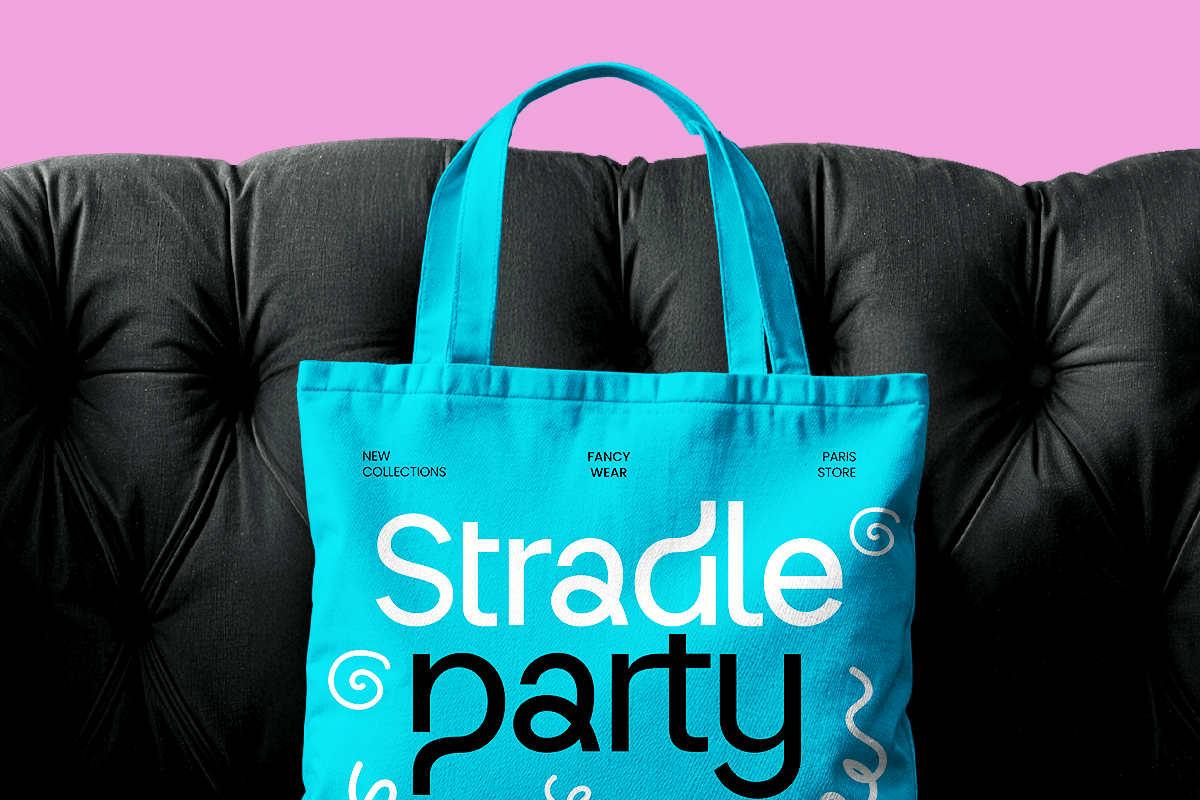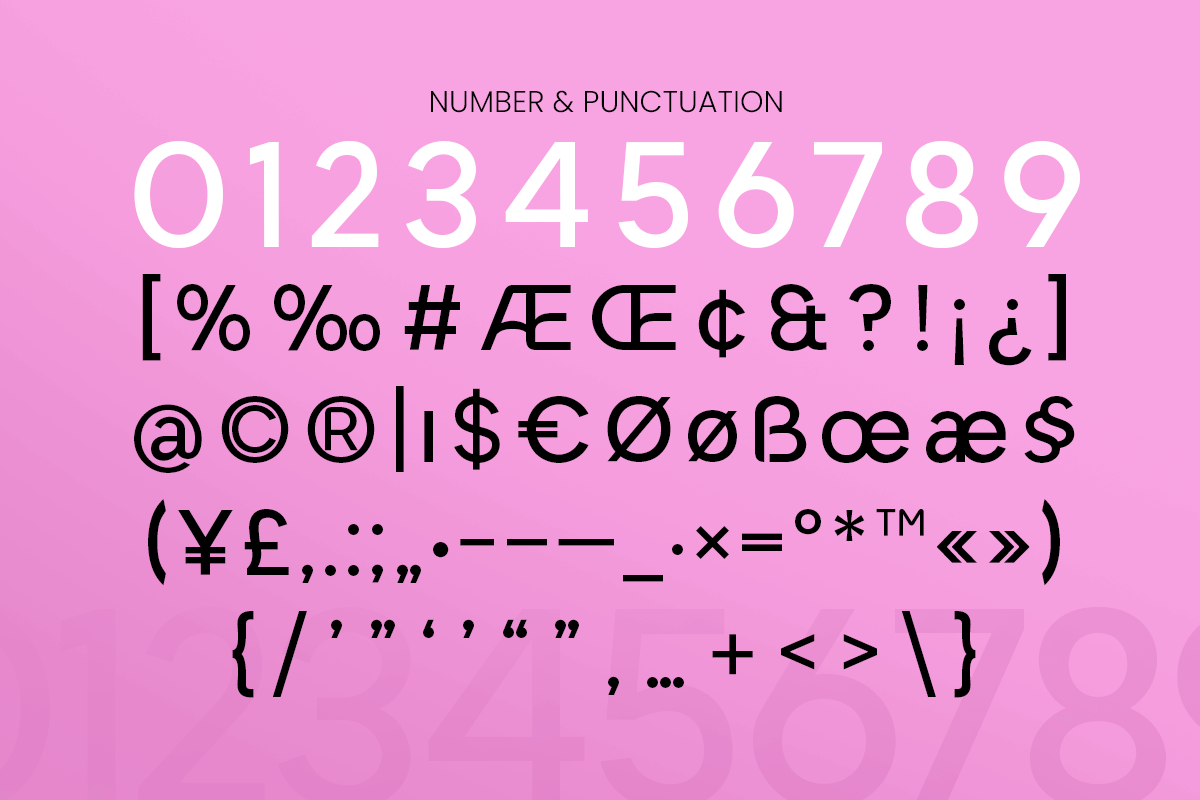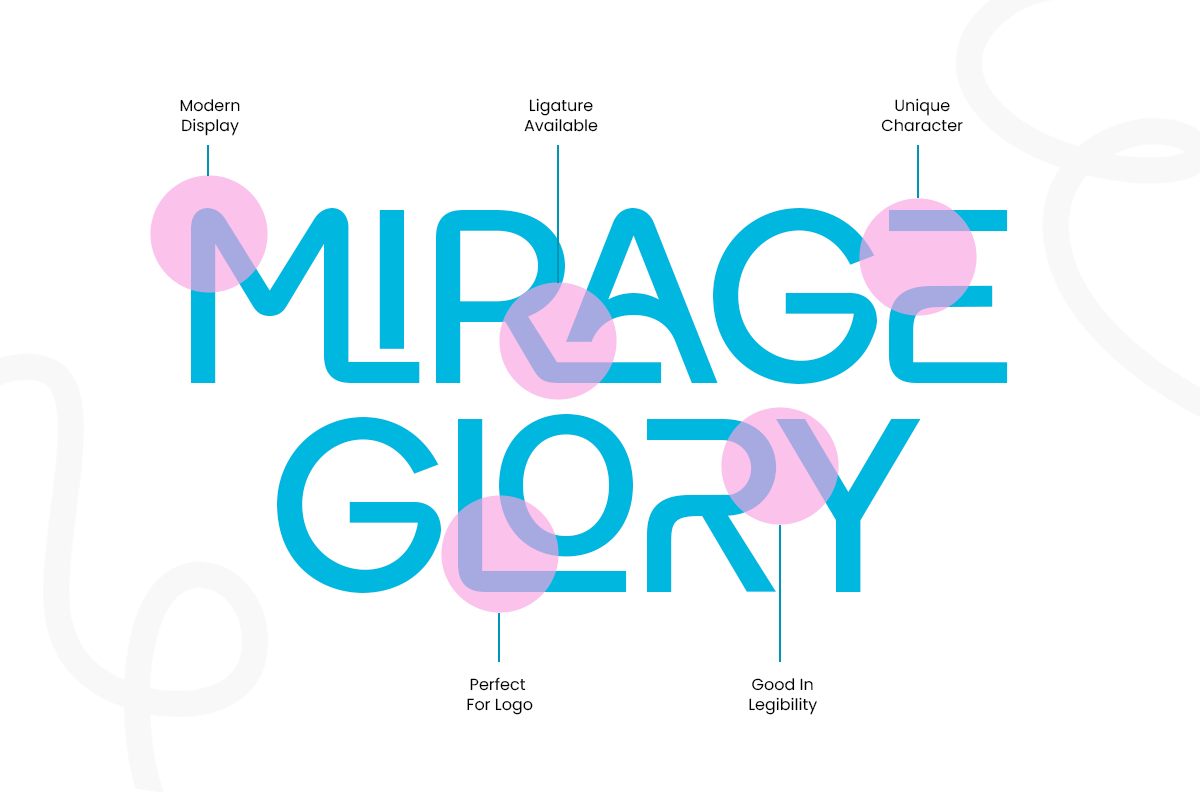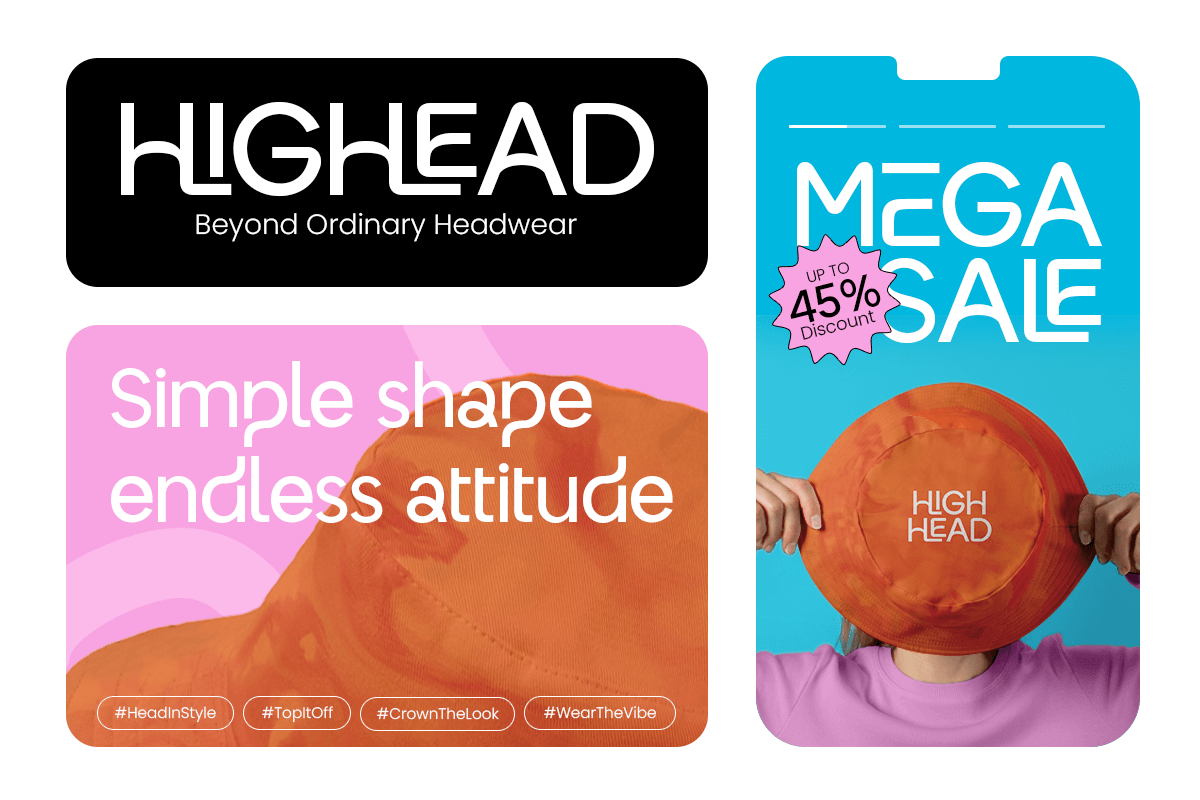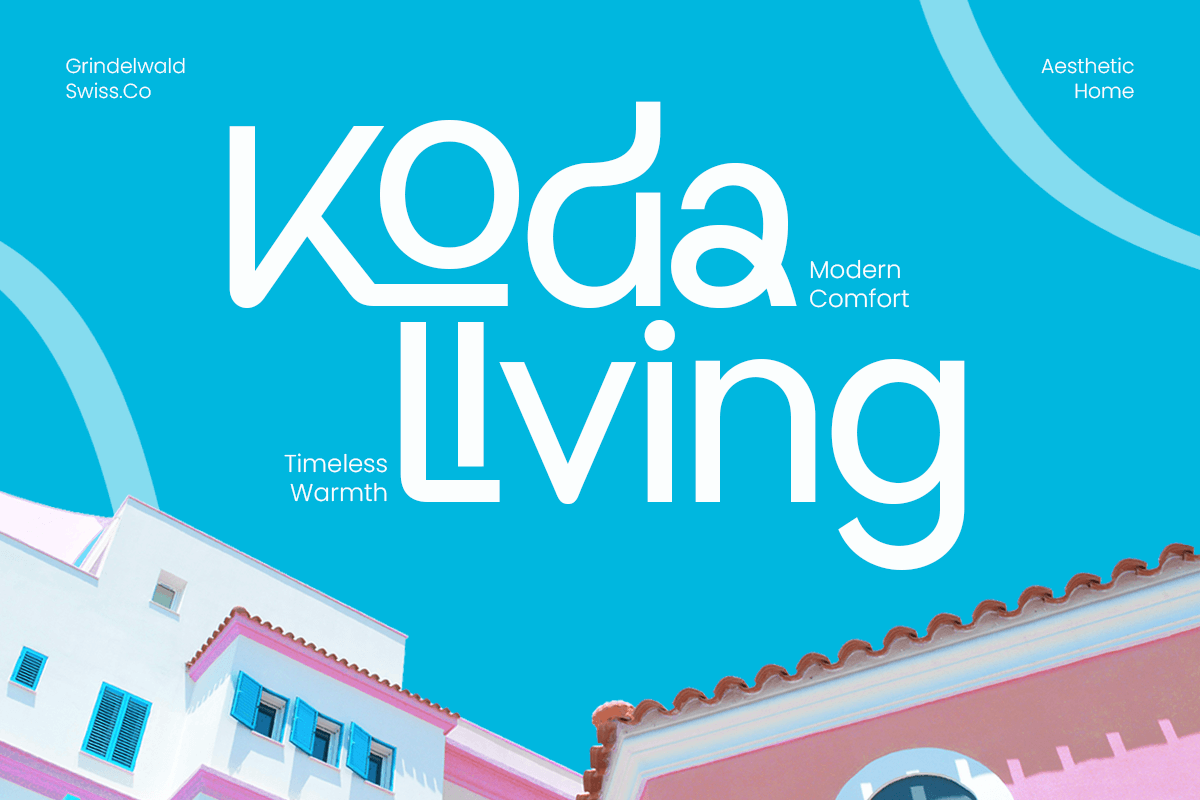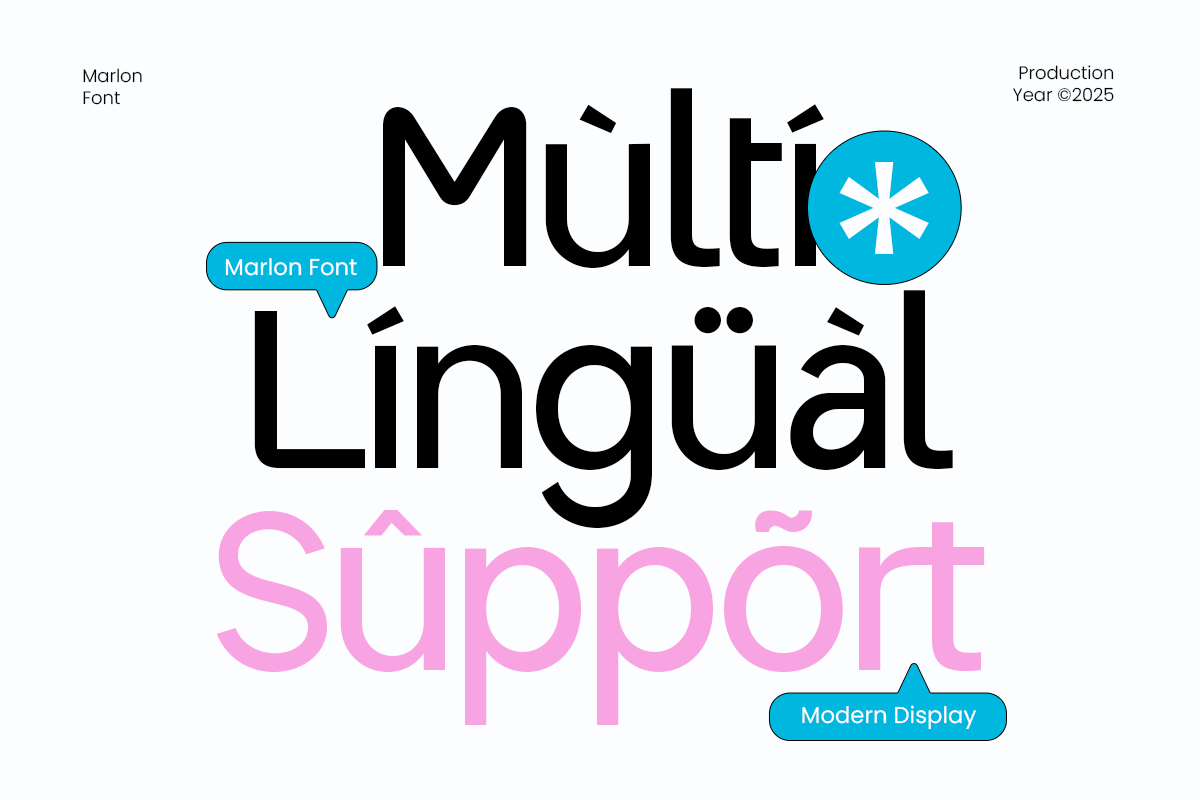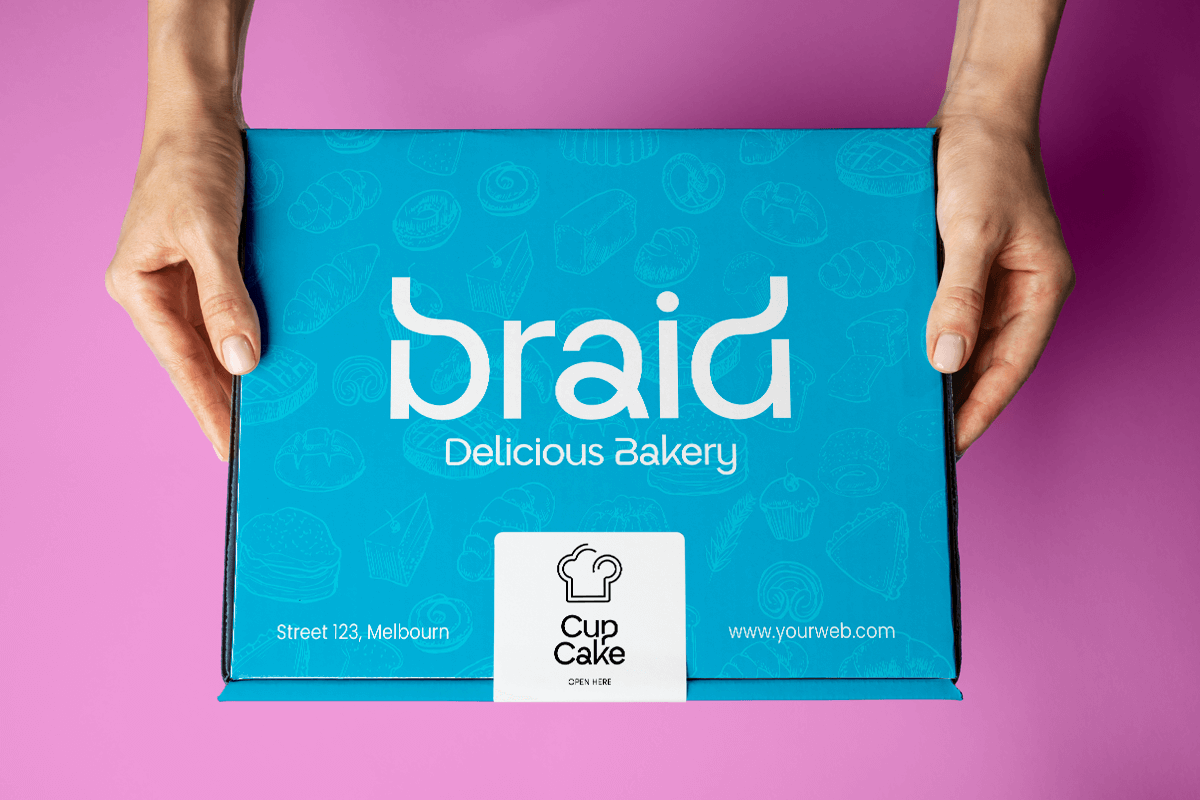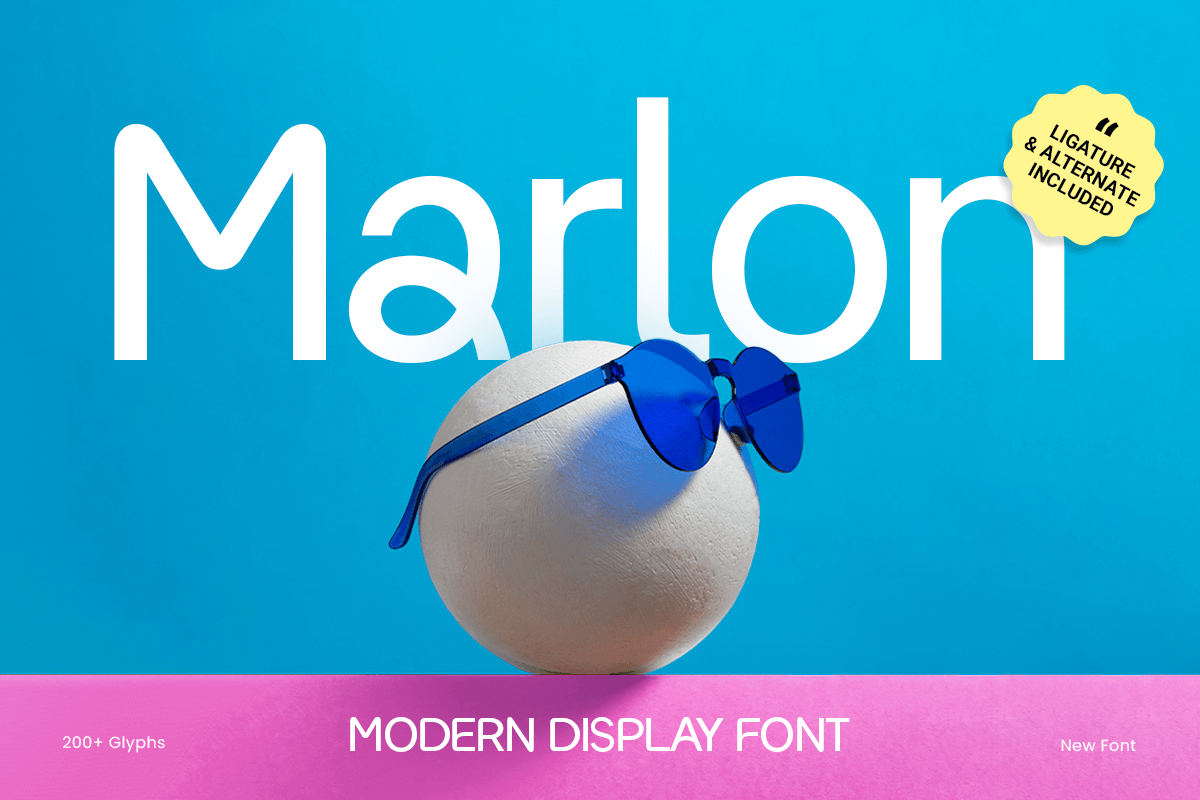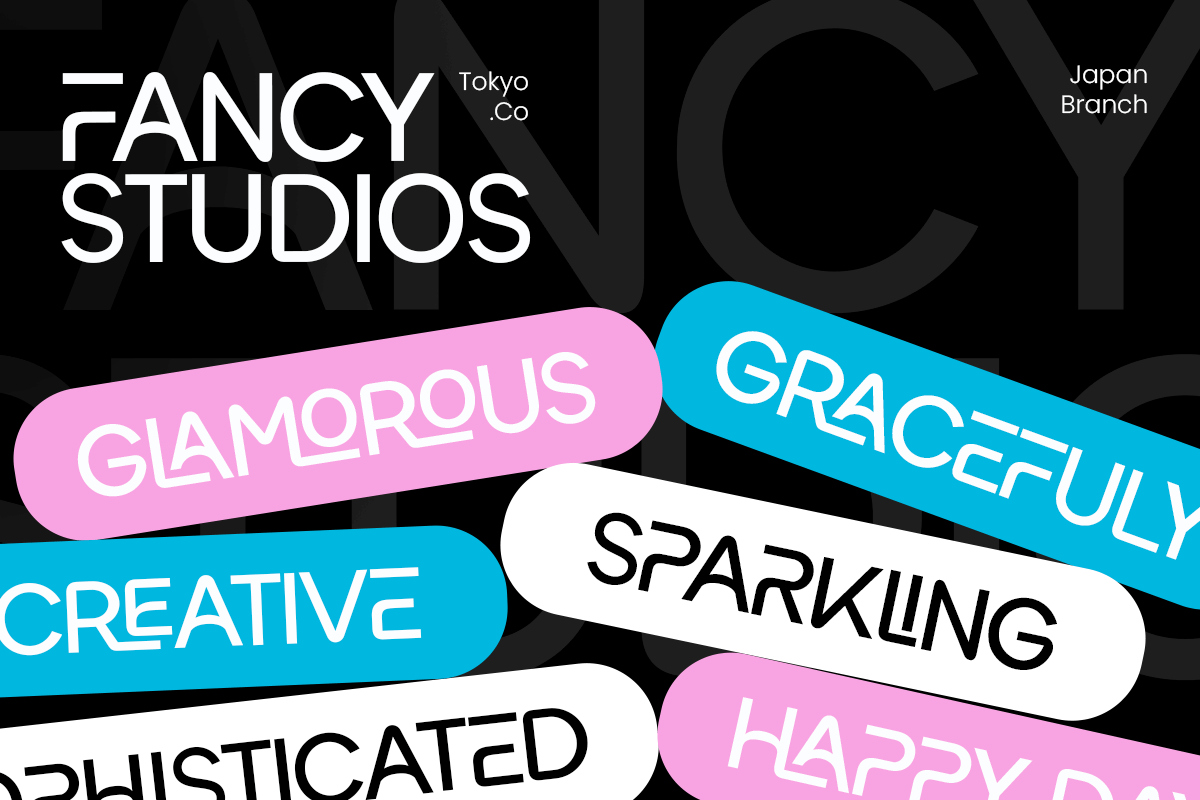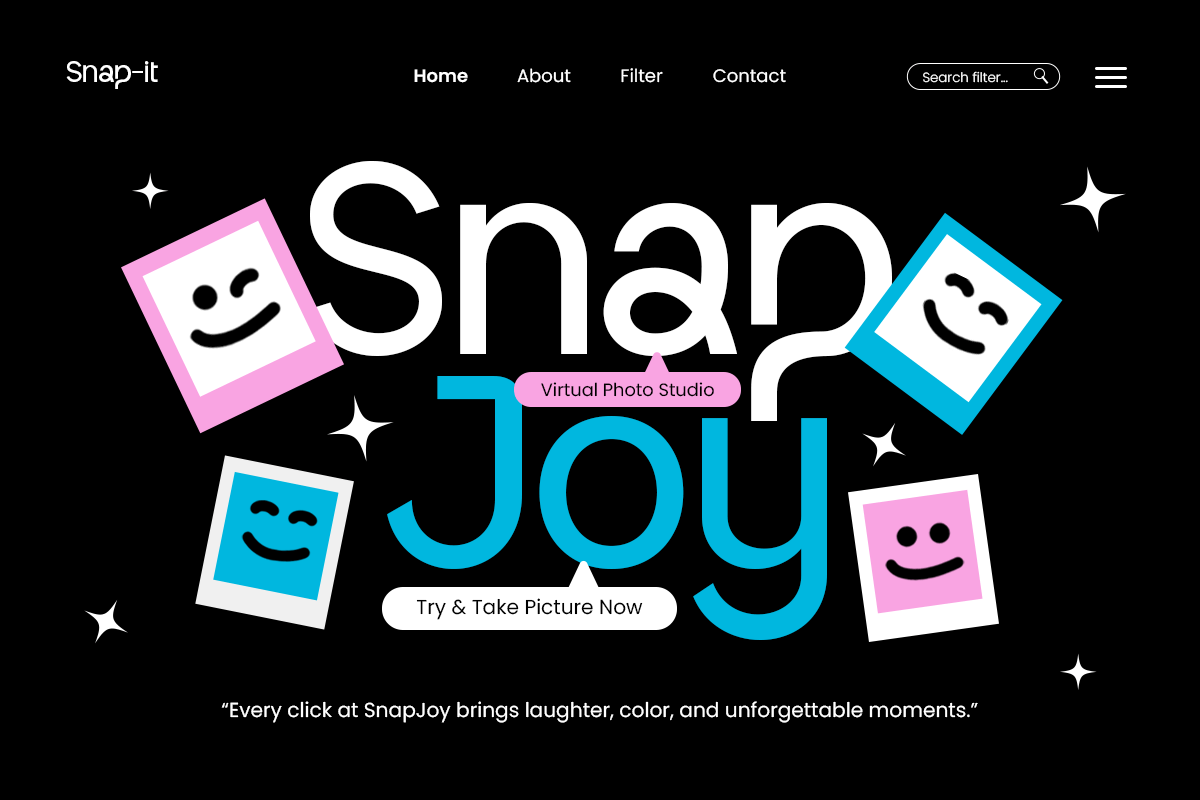
Marlon - Modern Display Font
Marlon is a modern display font crafted to bring a bold and contemporary flair to your designs. Perfect for branding, logos, headlines, posters, and digital media, it combines readability with a striking modern aesthetic. With clean lines and distinctive character shapes, Marlon makes your designs stand out in both print and digital projects, ideal for creative professionals and modern brands looking for a memorable visual identity.
Marlon – Modern Display Font Features
\\\* Bold and modern character set
\\\* Clean display style for versatile use
\\\* Uppercase, lowercase, numerals, and punctuation included
\\\* OpenType features for extra versatility
Make your designs stand out with Marlon – the ultimate modern display font!